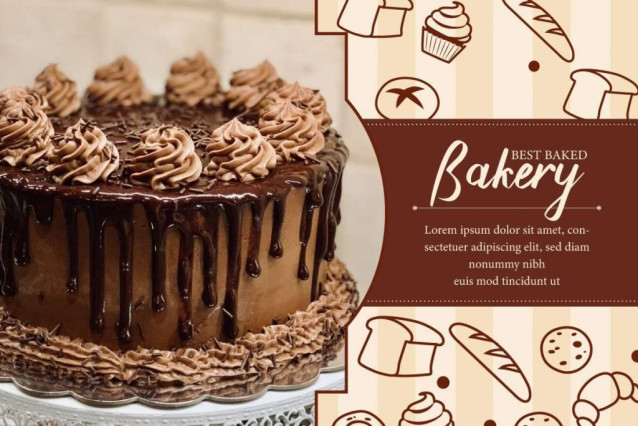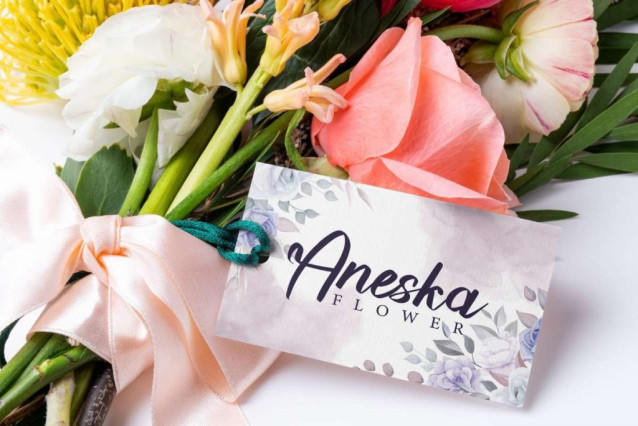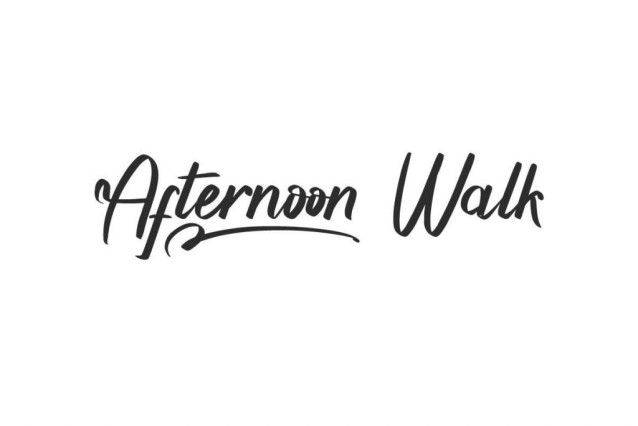
Afternoon Walk Font
Afternoon Walk Font is an awesome casual calligraphy font crafted by NihStudio. This font gives a new look to the world of typography so it will add beauty to your designs, such as brand logo, business card, label, poster, product packaging, quote, screen print, signage, stationery, sticker, title, watermark, website, and much more!
Afternoon Walk Font comes with a full set of Uppercase and Lowercase Basic Characters, Number, Punctuation, Symbol. It also features Alternate and Swoosh characters to create artistic value in the font. Use this for your business industry such bakery, beekeeping, florist, food or drink, furniture, photography, printing, publishing, real estate, restaurant, skincare, spa salon, etc.